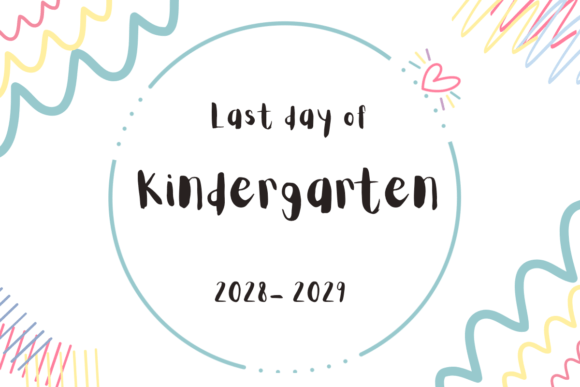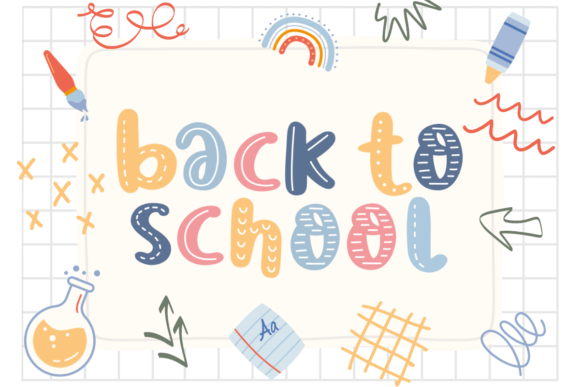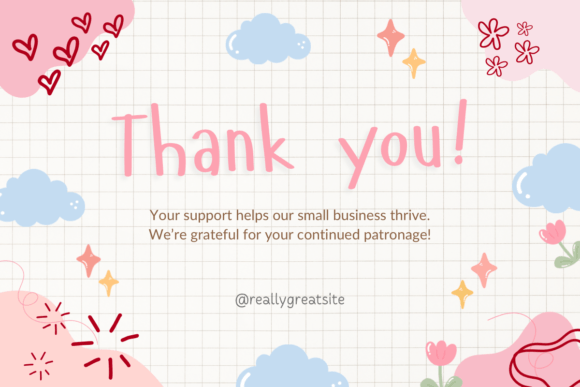
Bring Your Creations to Life with Doodles Element Font
Remember the feeling of getting lost in a creative moment, where time stands still and all that matters is the idea unfolding before your eyes? For designers, that moment is a treasure trove of inspiration. It’s the spark that sets off a chain reaction of imagination, leading to innovative and unique projects.
Doodles Element Font is a versatile dingbats font that captures the essence of a sketchy style, making it perfect for adding a personal touch to your creative projects. From wedding invitations to DIY crafts, this font is an ideal companion for designers looking to elevate their designs. Its value lies in its ability to add a whimsical, hand-drawn feel to any project, setting it apart from generic fonts.
Whether you’re a seasoned designer or a hobbyist, Doodles Element Font is a valuable addition to your toolkit. Its versatility and charm make it an excellent choice for anyone looking to add a touch of personality to their designs.
- Unique Characteristics: This font features a playful, hand-drawn style with unique doodle elements, making it ideal for creative and whimsical designs.
Doodles Element Font Review
I’ve had the chance to work with the Doodles Element Font, and overall, it’s been a pleasant experience. ✨ One thing that stands out is its unique character. The font has a playful, whimsical feel that can add a lot of personality to your designs. The doodle-inspired elements make it perfect for creative projects, like children’s books or educational materials.
Another strength of the font is its versatility. ✨ It comes in a range of weights and styles, making it easy to find the right fit for your project. From light and airy to bold and playful, the font has something for everyone.
- ⚠️ Limited use in formal or professional settings: While the font is perfect for creative projects, it may not be the best choice for formal or professional documents. Its playful nature can come across as unprofessional in certain contexts.
- ⚠️ Not ideal for small text: Due to its unique character, the font can be difficult to read at small sizes. It’s best to use it for larger text or headings.
Overall, I think the Doodles Element Font is a great choice for designers looking for a unique and playful font. While it may have some limitations, its strengths make it a valuable addition to any design toolkit.
Doodles Element Font is perfect for:
- Creating whimsical and playful designs.
- Adding a touch of hand-drawn charm to your designs.
- Designing children’s products, such as books, toys, and educational materials.
Experiment with different font sizes, colors, and styles to create unique and eye-catching designs.